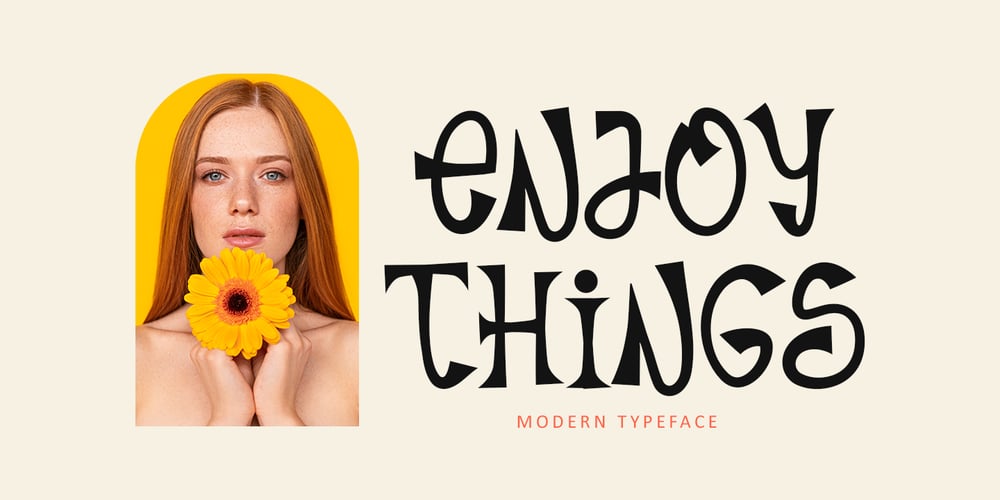
Enjoy Things Font Family was designed by Bayu Suwirya and published by Illushvara. Enjoy Things contains 1 styles and family package options. Enjoy Things is a fun, quirky and modern display font. Add to each of your party invitation, gathering or pretty much any design that requires a touch of youth and joy.